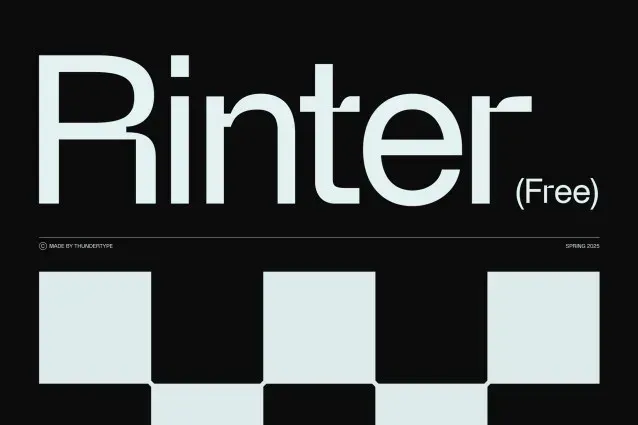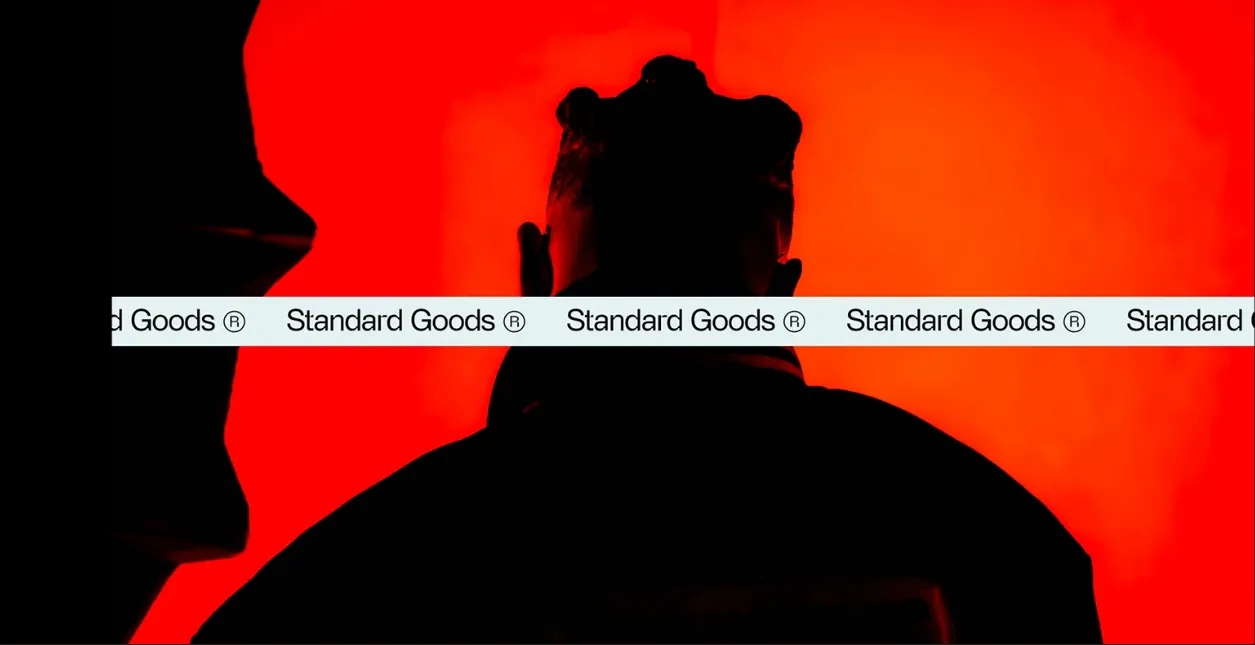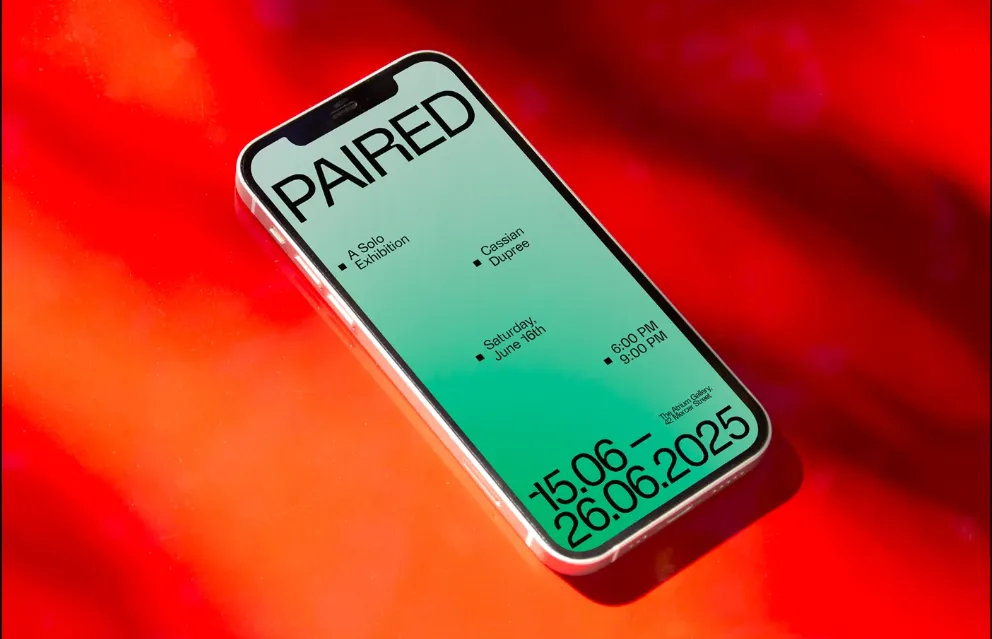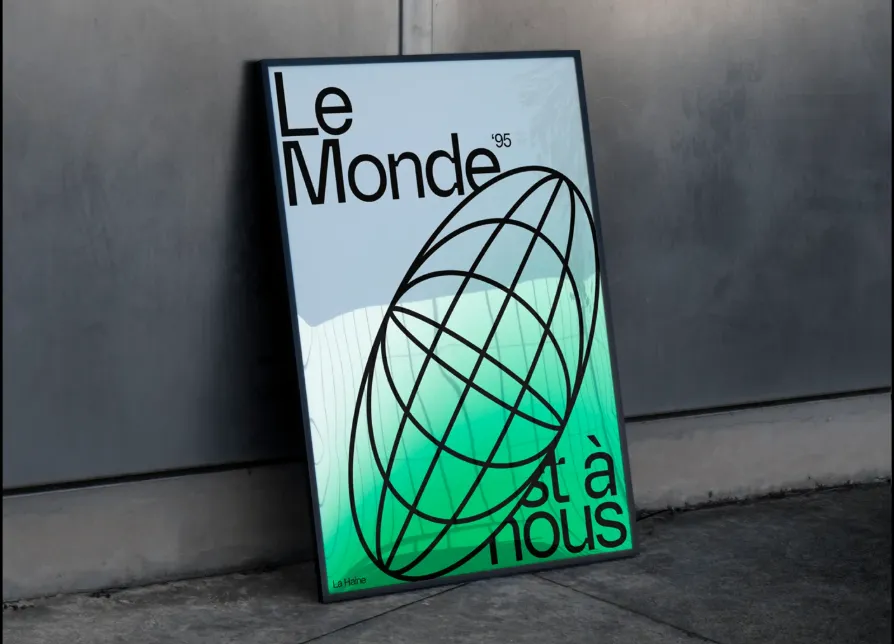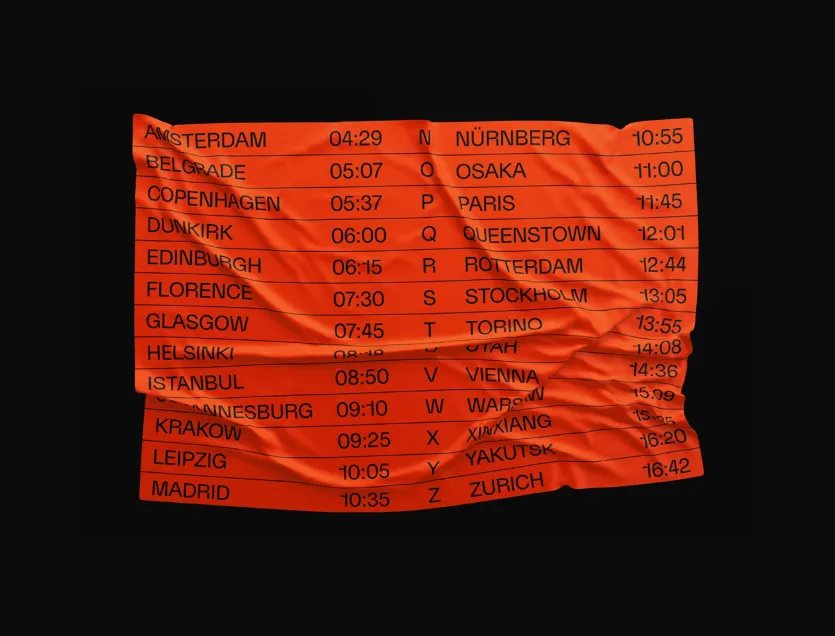
About Rinter Font
I’m a typographer and graphic designer, and I recently came across Rinter Font during a branding project. As someone who values finding the right font for every project, I was immediately drawn to its strong and modern look. It was the perfect choice for a design that required something clean yet bold.
After testing Rinter on my own, I felt compelled to share my thoughts on this incredible font with you. It has quickly become my new go-to font for both web and graphic design. Let’s dive into why Rinter Font is a game-changer for designers like me.
The Designer and Font Type
Rinter Font is a beautifully crafted grotesque sans-serif typeface designed by Thunder Type. This font pays homage to Swiss modernism, a movement known for clean, functional designs with a focus on minimalism. Rinter takes the iconic characteristics of typefaces like Helvetica and Akzidenz and introduces a modern twist. Its sharp corners and inktraps add a unique touch, making it both elegant and highly readable. The font’s strength lies in its versatility. It’s perfectly balanced, offering a sleek and modern appearance without sacrificing legibility.
Rinter is not just any grotesque typeface. It’s a contemporary take on the classic Swiss style, infused with a tech-forward edge. Whether you’re designing a logo, a website, or an editorial layout, Rinter will help elevate your project to the next level. It’s a versatile font that fits effortlessly into both corporate and creative branding, making it ideal for commercial use as well.
Rinter Free Font Features
Rinter Font stands out with its attention to detail. This sans-serif typeface is packed with features that will elevate any design. The clean, sharp corners are a modern twist on the traditional grotesque style. You can feel the Swiss influence, with its perfect balance and crisp lines. The font includes a variety of weights, which allows for flexibility in usage, whether you need something bold for headlines or subtle for body text.
What really sets Rinter apart is its versatility across platforms. It is perfect for web design, editorial layouts, branding projects, and even personal uses. It supports over 265 languages, ensuring that no matter where your project takes you,
Rinter can handle the job. Plus, the modern yet timeless aesthetic makes it a favorite for contemporary designers looking for a dependable workhorse font. The combination of its historical influence and modern tech-infused design makes Rinter stand out in a crowded field of fonts.
Rinter Font is incredibly versatile, making it ideal for a variety of design projects. Whether you’re working on a sleek corporate website, a creative branding campaign, or an editorial layout, Rinter fits right in. It’s the perfect typeface for web and graphic design due to its readability and modern look. If you’re designing a logo, the clean lines and sharp corners give it an authoritative yet approachable vibe. Similarly, for editorial design, Rinter holds its own in both small and large text, ensuring readability across all sizes.
Thanks to its classic Swiss grotesque roots and modern twist, Rinter is great for high-end commercial use. Its balance between elegance and boldness makes it a go-to for branding and logo design. It works wonderfully in both digital and print formats, ensuring consistency across all platforms. With its global language support, Rinter is also a fantastic choice for international projects, making it an essential tool for designers working with global audiences.